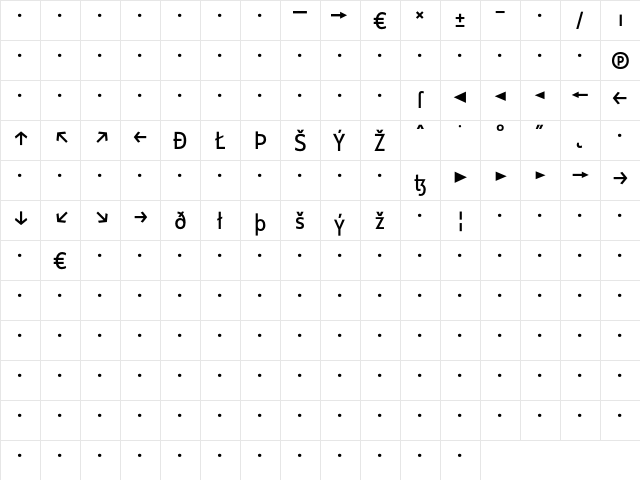
CstBerlinWest RegularExp Font Preview
CstBerlinWest RegularExp
Design Context for CstBerlinWest Typeface
CstBerlinWest offers clean, dependable letterforms without strong stylistic allegiance, making it a practical choice for designers who need flexibility.
Pro Tip: Use CstBerlinWest in both headline and body roles to test its range before committing to a single application.